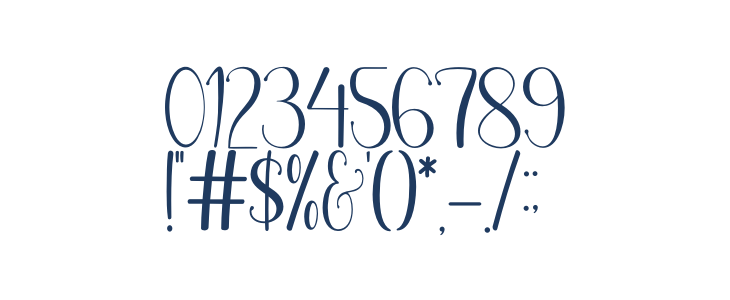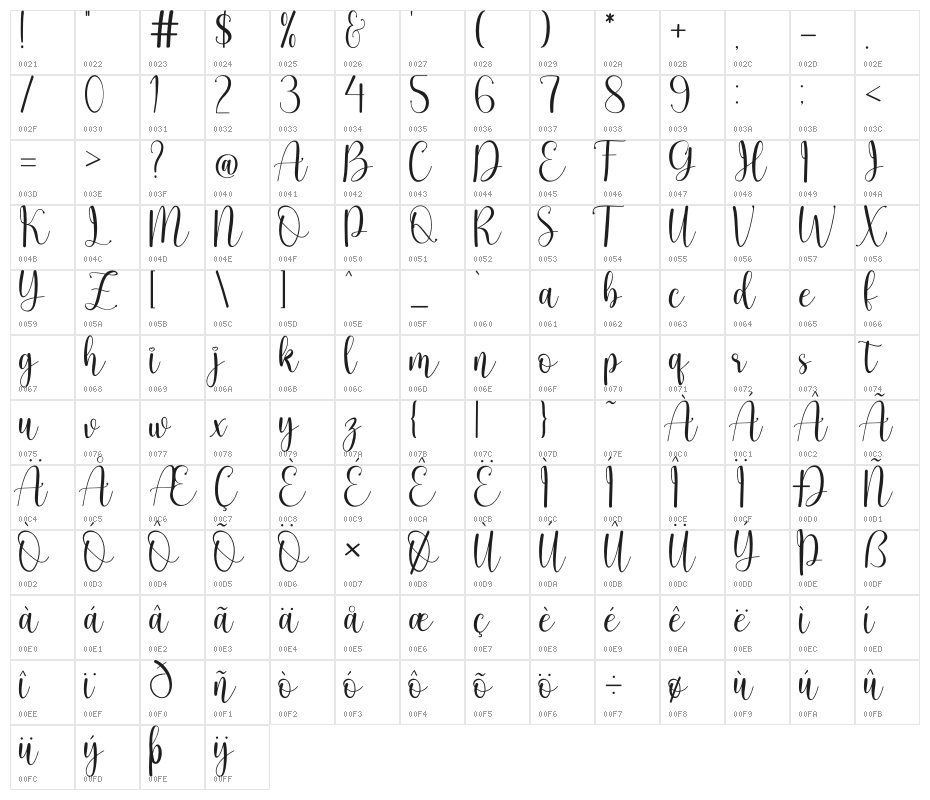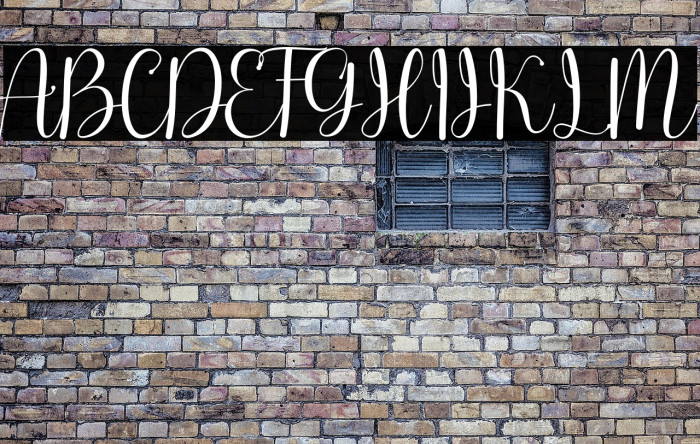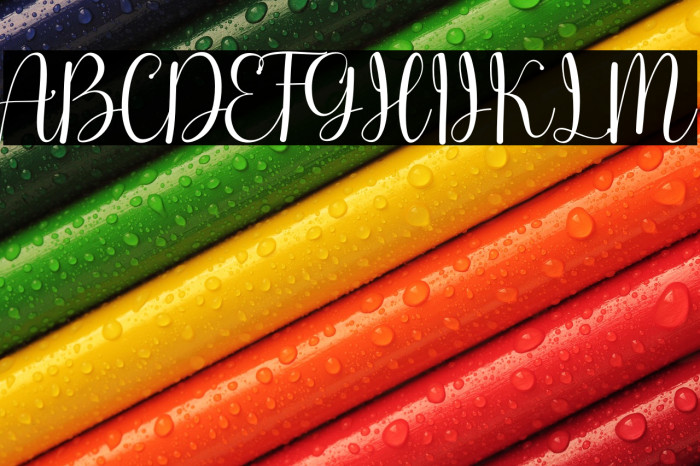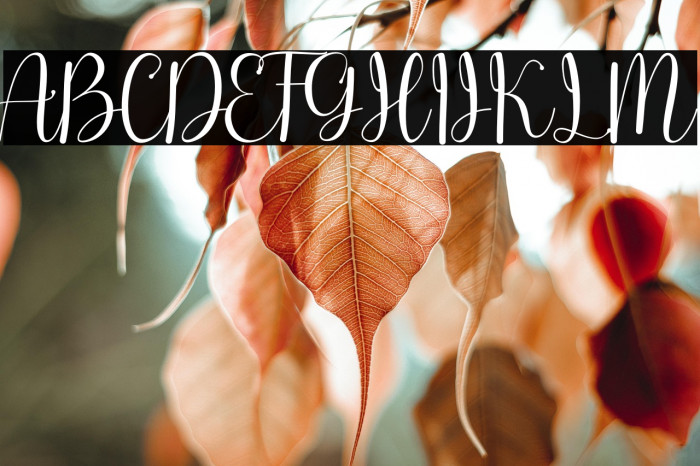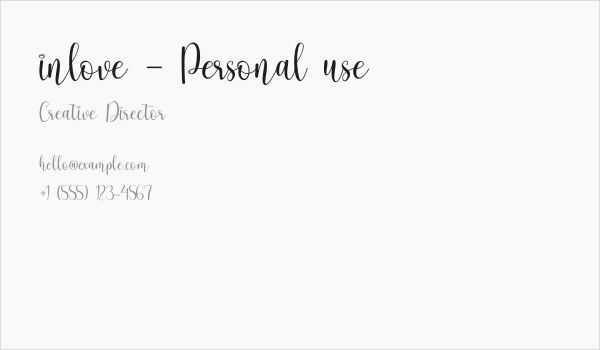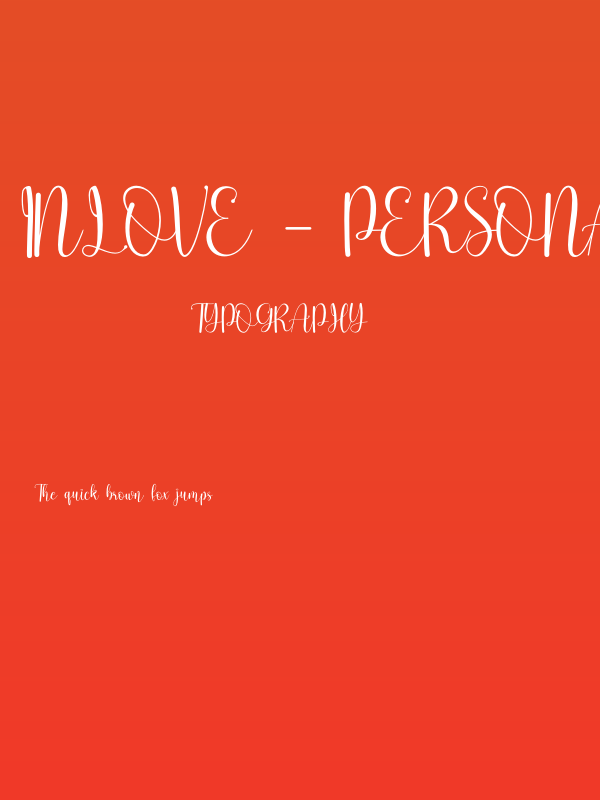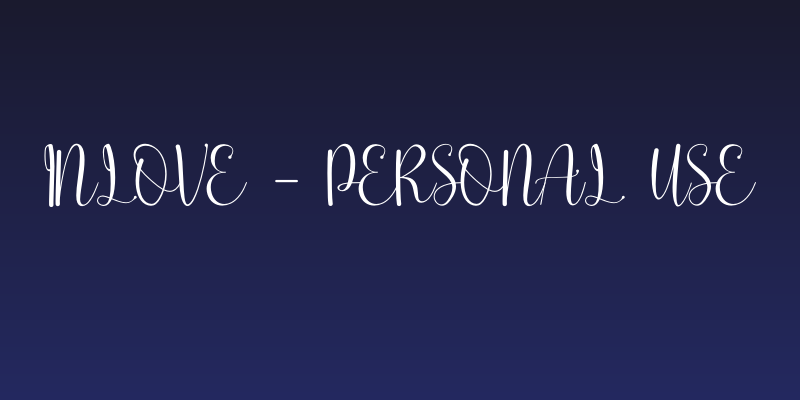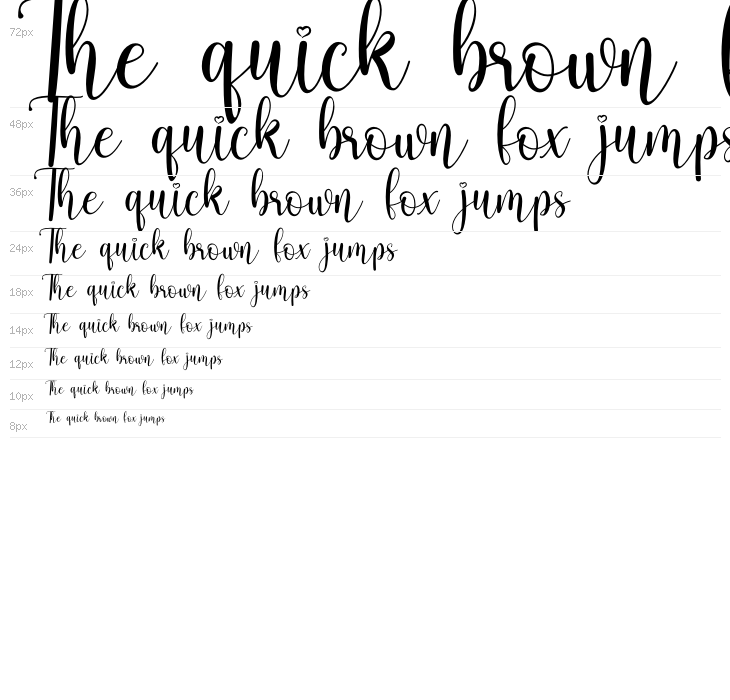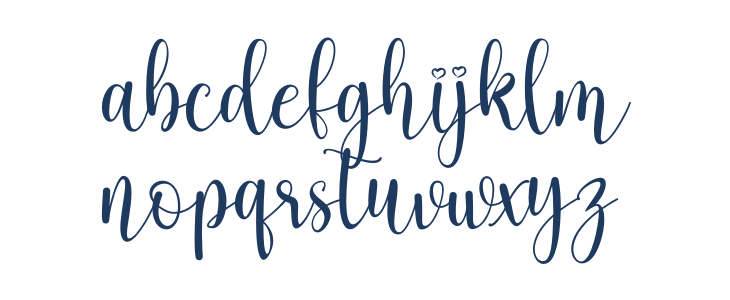
inlove - Personal use Font
inlove - Personal use Description
This font features a whimsical and elegant script style with flowing, interconnected letters. The uppercase characters are tall and slender, with delicate loops and swirls that add a touch of sophistication. The lowercase letters maintain a consistent flow, with some characters featuring charming embellishments like small hearts. The numerals are stylish and maintain the same fluidity as the letters, making them cohesive with the overall design. Special characters are creatively integrated, enhancing the playful yet refined aesthetic. This font is perfect for projects that require a personal and romantic touch, such as wedding invitations or love-themed designs.
| Overall Style | Romantic, Elegant |
| Use Case | Logos, Invitations, Decorative Text |
| Proposed Projects | Ideal for wedding invitations, greeting cards, romantic quotes, and branding that requires a personal touch. |